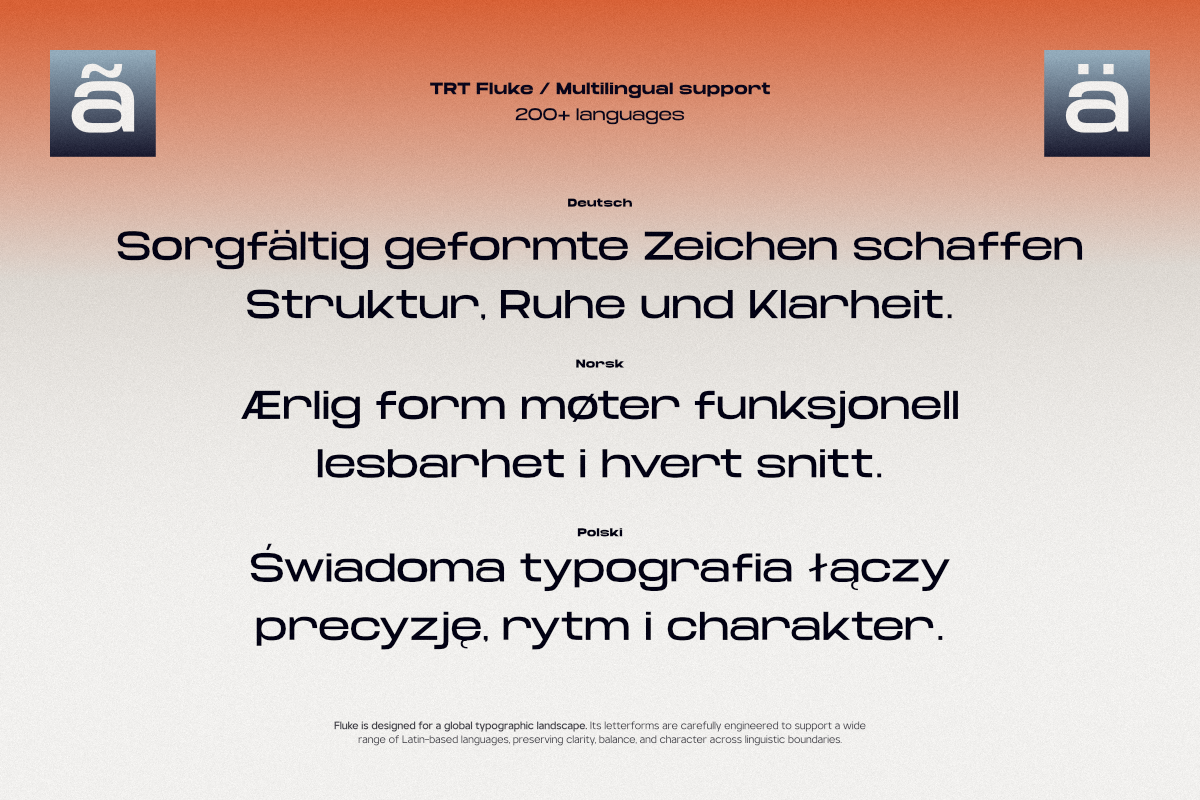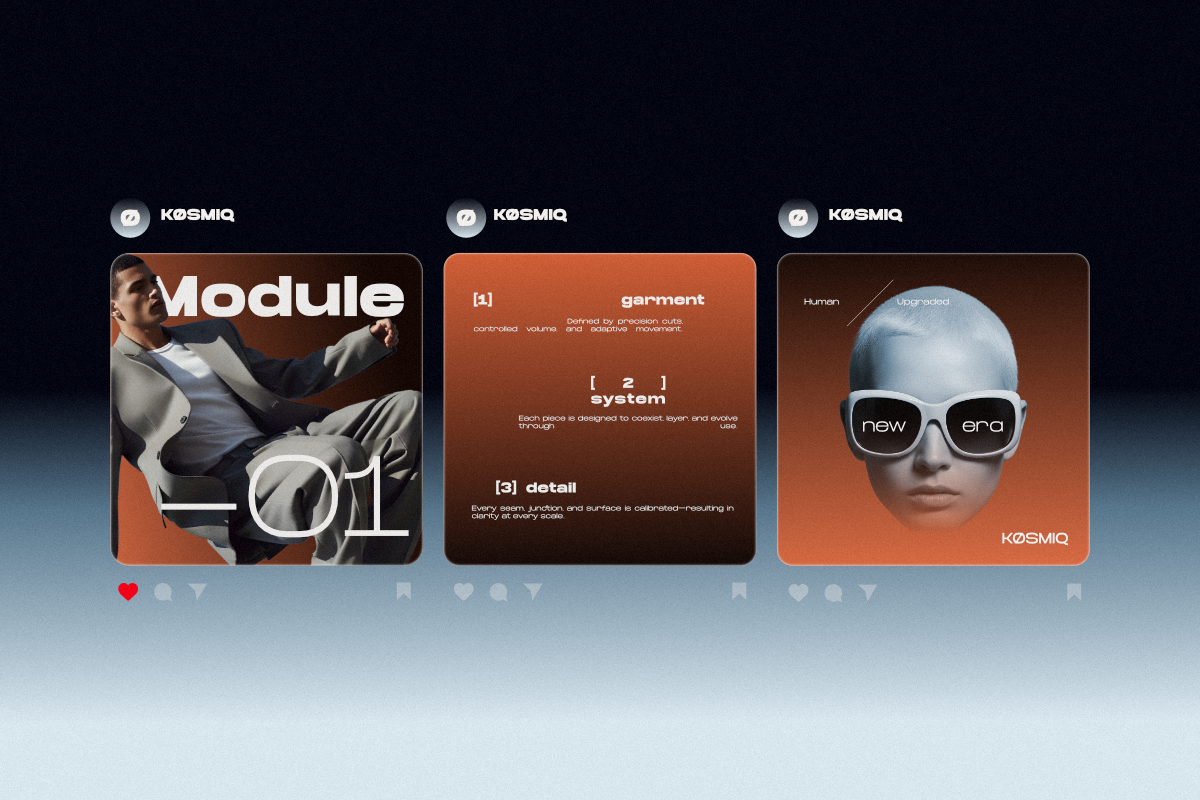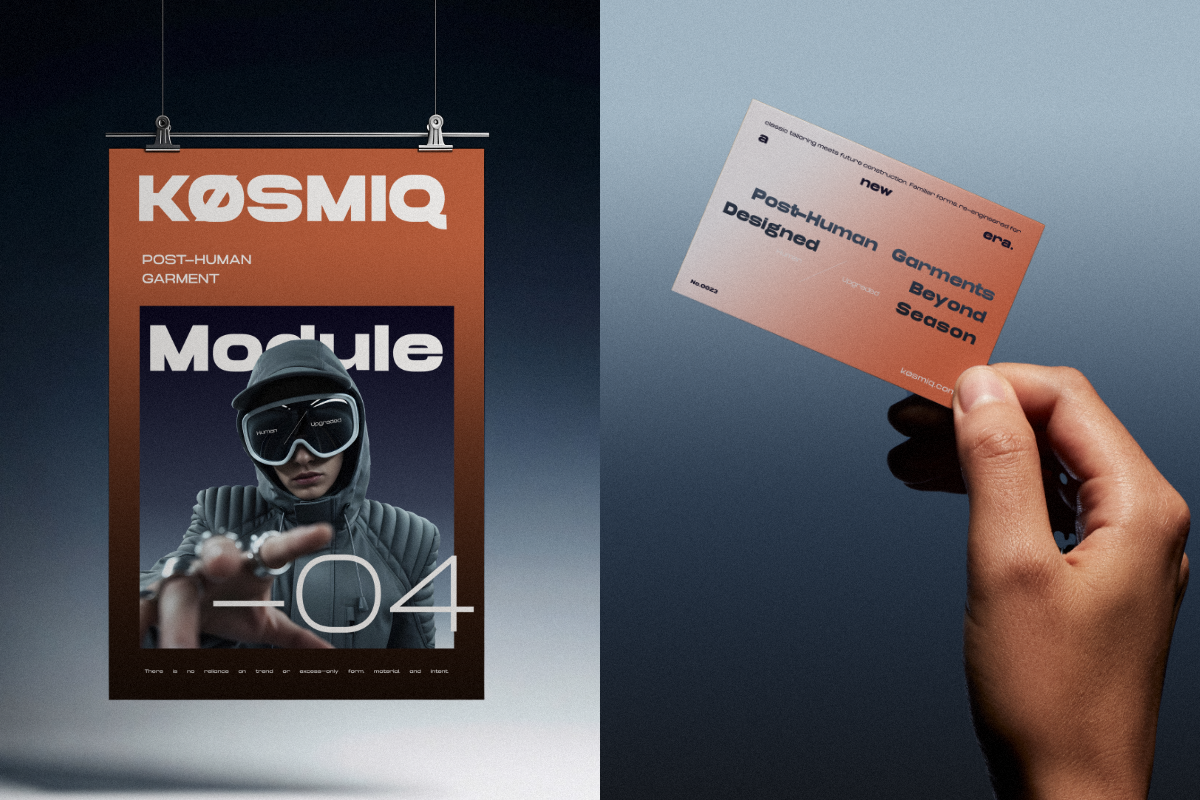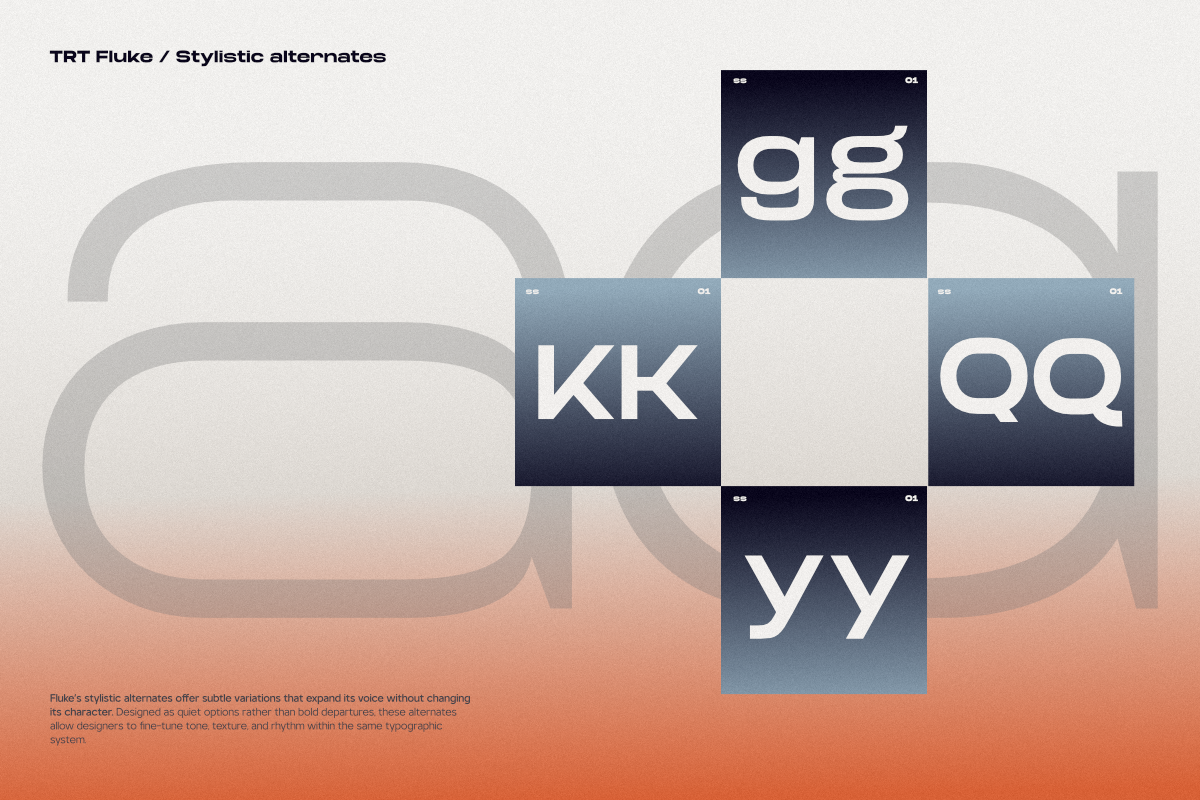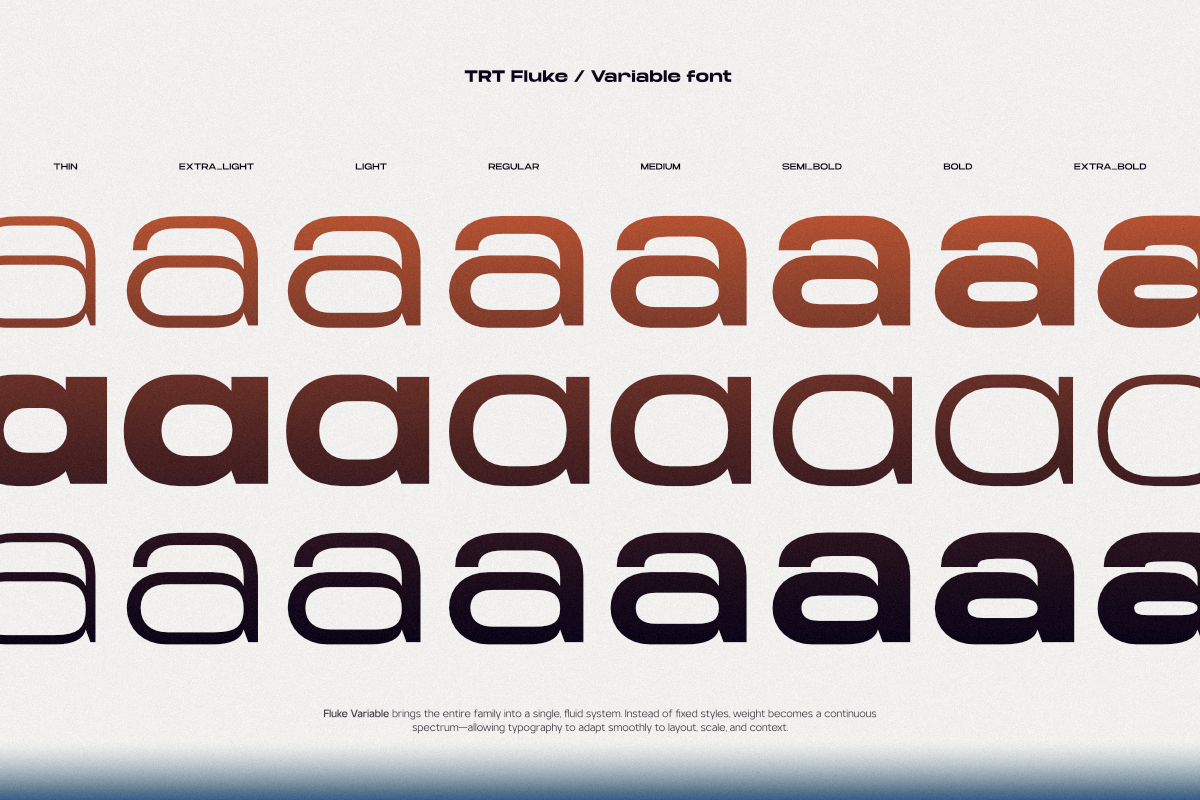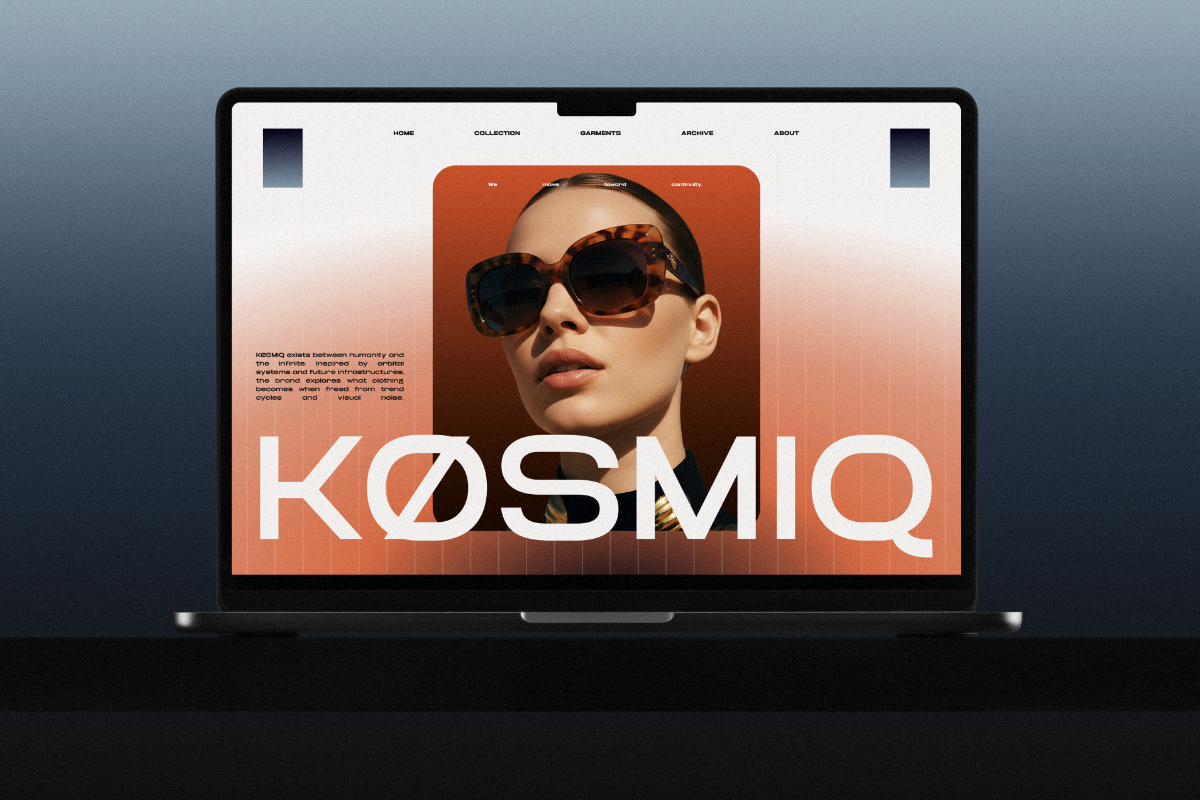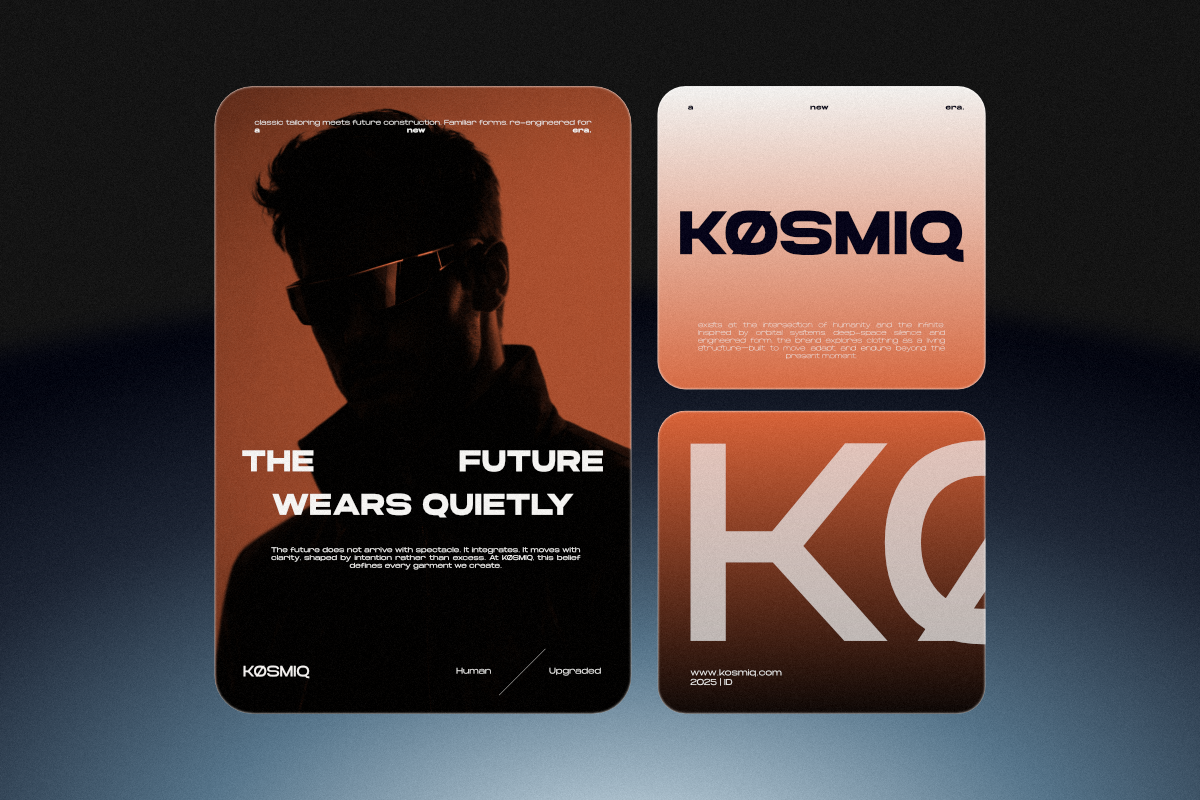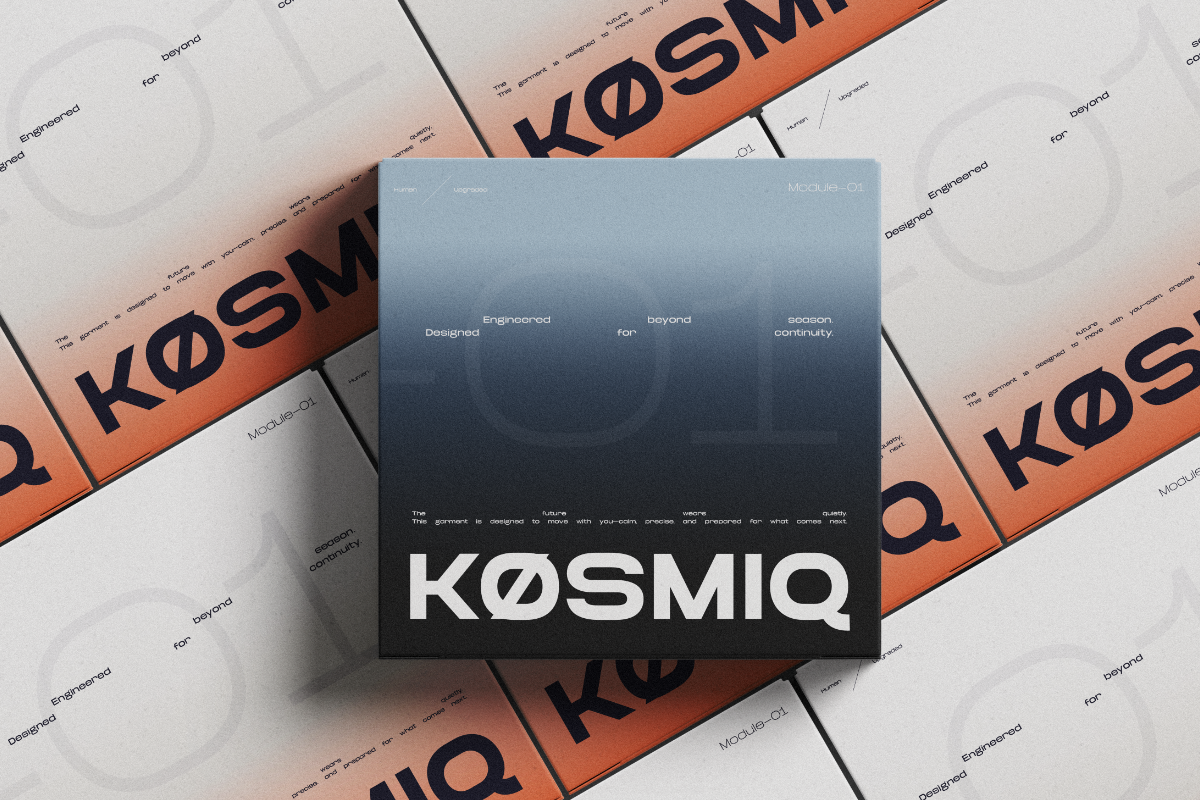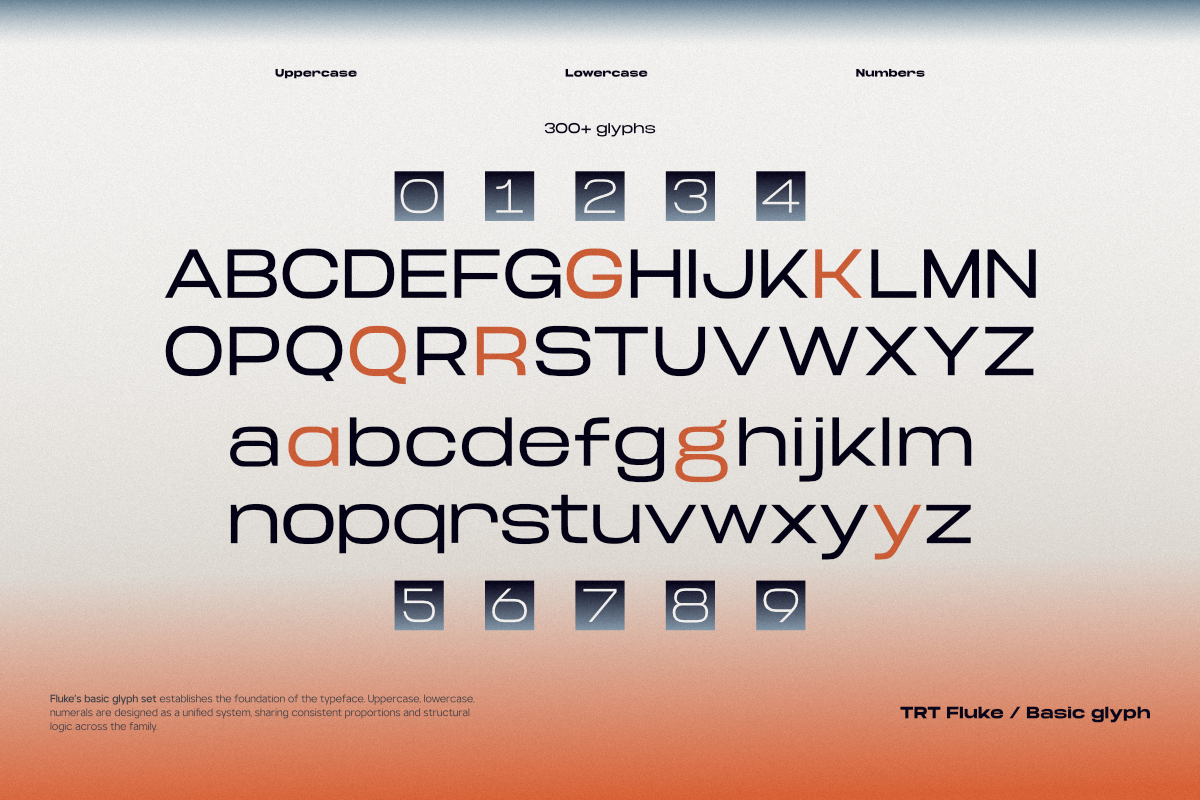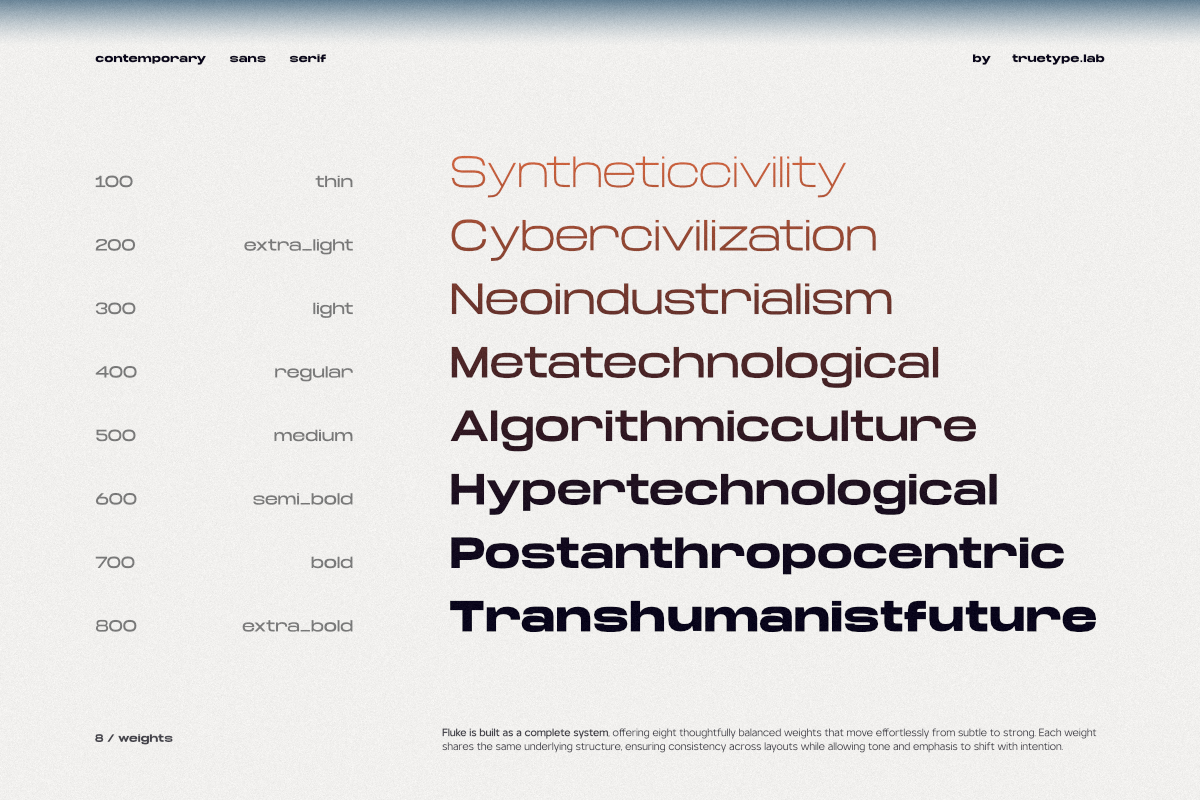
TRT Fluke Expanded Modern Sans Serif
TRT Fluke is an expanded modern sans serif typeface built around space, tension, and strong visual presence. Each letterform in TRT Fluke is carefully extended with intention, creating a wide and confident rhythm that feels bold yet controlled. Its expanded proportions allow words to breathe, turning typography into a visual statement rather than just a container for text.
Designed for designs that demand instant impact, TRT Fluke excels in headlines, posters, branding, and editorial layouts. The strong horizontal emphasis delivers both stability and movement, making TRT Fluke ideal for storytelling-driven visuals where clarity, emotion, and presence must coexist.
Built for designers who work with scale, layout, and contrast as narrative tools, TRT Fluke supports a wide range of creative needs. From modern branding systems and editorial spreads to digital campaigns and UI-forward visuals, this expanded sans serif family delivers a clean, contemporary, and professional tone across both print and digital environments.